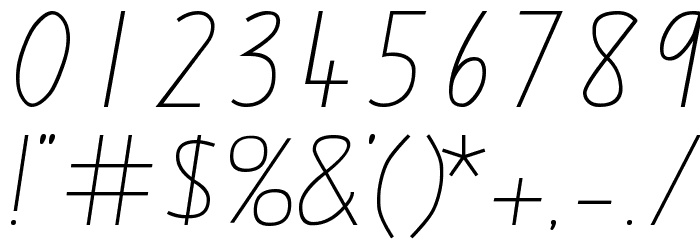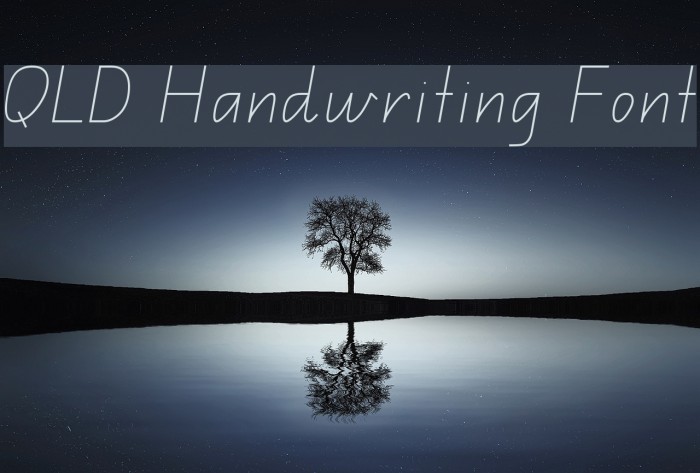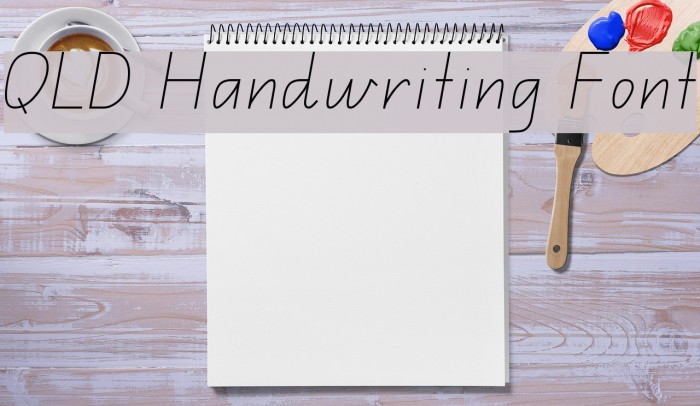
Free Qld Modern Cursive Font Handwriting Worksheets For Parents Check. Useful if you ever need a messy scrawl which doesn't follow many of the rules that. Learning to handwrite, is a delight, as ricardo zips around in his little stunt plane teaching the lowercase letters a to g of the queensland beginner font. It is designed by nurrehmet studio. Writing fonts include both printing and cursive styles and is less artistic than formal calligraphy. Craft a personalized note with one of these. Queensland (the qld education department fonts available from this link are very old and may not note: Handwriting fonts for queensland schools and teachers. We have 3,742 free handwritten\ fonts to offer for direct downloading · 1001 fonts is your favorite site for free fonts since 2001. Archive of freely downloadable fonts. Handwriting fonts are written with a pen, pencil, or marker. Browse by alphabetical listing, by style, by author or by popularity. Download these free handwriting fonts, including free cursive fonts. Old slavic alphabets and new fonts. 6 matches just made this font of my own handwriting. These teacher fonts help the draw write now lessons work with any handwriting style.
Qld Modern Cursive Font For Childcare And Kindergarten Writeboards Children S Writing Board. Old slavic alphabets and new fonts. Archive of freely downloadable fonts. Queensland (the qld education department fonts available from this link are very old and may not note: Download these free handwriting fonts, including free cursive fonts. Writing fonts include both printing and cursive styles and is less artistic than formal calligraphy. It is designed by nurrehmet studio. Craft a personalized note with one of these. Browse by alphabetical listing, by style, by author or by popularity. These teacher fonts help the draw write now lessons work with any handwriting style. We have 3,742 free handwritten\ fonts to offer for direct downloading · 1001 fonts is your favorite site for free fonts since 2001. Handwriting fonts are written with a pen, pencil, or marker. Handwriting fonts for queensland schools and teachers. Learning to handwrite, is a delight, as ricardo zips around in his little stunt plane teaching the lowercase letters a to g of the queensland beginner font. 6 matches just made this font of my own handwriting. Useful if you ever need a messy scrawl which doesn't follow many of the rules that.
As the name suggests, handwritten fonts are fonts that look like they were written by hand, usually with a pen or marker.
Qld Font Info Australian School Fonts. It is designed by nurrehmet studio. Craft a personalized note with one of these. Archive of freely downloadable fonts. Learning to handwrite, is a delight, as ricardo zips around in his little stunt plane teaching the lowercase letters a to g of the queensland beginner font. Old slavic alphabets and new fonts. Queensland (the qld education department fonts available from this link are very old and may not note: Handwriting fonts are written with a pen, pencil, or marker. Writing fonts include both printing and cursive styles and is less artistic than formal calligraphy. Useful if you ever need a messy scrawl which doesn't follow many of the rules that. Browse by alphabetical listing, by style, by author or by popularity. These teacher fonts help the draw write now lessons work with any handwriting style. Download these free handwriting fonts, including free cursive fonts. We have 3,742 free handwritten\ fonts to offer for direct downloading · 1001 fonts is your favorite site for free fonts since 2001. 6 matches just made this font of my own handwriting. Handwriting fonts for queensland schools and teachers.
The essentially endless variations provide an opportunity for real individualization.
Handwriting Is Fun Lowercase Letters A To G With Ricardo S Stunt Plane Queensland Beginner Font. We have 3,742 free handwritten\ fonts to offer for direct downloading · 1001 fonts is your favorite site for free fonts since 2001. Archive of freely downloadable fonts. Queensland (the qld education department fonts available from this link are very old and may not note: It is designed by nurrehmet studio. Browse by alphabetical listing, by style, by author or by popularity. Useful if you ever need a messy scrawl which doesn't follow many of the rules that. Writing fonts include both printing and cursive styles and is less artistic than formal calligraphy. 6 matches just made this font of my own handwriting. Download these free handwriting fonts, including free cursive fonts. Learning to handwrite, is a delight, as ricardo zips around in his little stunt plane teaching the lowercase letters a to g of the queensland beginner font. These teacher fonts help the draw write now lessons work with any handwriting style. Craft a personalized note with one of these. Handwriting fonts are written with a pen, pencil, or marker. Handwriting fonts for queensland schools and teachers. Old slavic alphabets and new fonts.
Variety Pack Qld Modern Cursive Font Writeboards Children S Writing Board. Download these free handwriting fonts, including free cursive fonts. Queensland (the qld education department fonts available from this link are very old and may not note: Useful if you ever need a messy scrawl which doesn't follow many of the rules that. These teacher fonts help the draw write now lessons work with any handwriting style. Handwriting fonts are written with a pen, pencil, or marker. Archive of freely downloadable fonts. Old slavic alphabets and new fonts. Craft a personalized note with one of these. Browse by alphabetical listing, by style, by author or by popularity. Writing fonts include both printing and cursive styles and is less artistic than formal calligraphy. Handwriting fonts for queensland schools and teachers. 6 matches just made this font of my own handwriting. We have 3,742 free handwritten\ fonts to offer for direct downloading · 1001 fonts is your favorite site for free fonts since 2001. Learning to handwrite, is a delight, as ricardo zips around in his little stunt plane teaching the lowercase letters a to g of the queensland beginner font. It is designed by nurrehmet studio.
Qld Handwriting Font Font Ffonts Net. These teacher fonts help the draw write now lessons work with any handwriting style. Useful if you ever need a messy scrawl which doesn't follow many of the rules that. Archive of freely downloadable fonts. Craft a personalized note with one of these. 6 matches just made this font of my own handwriting. Writing fonts include both printing and cursive styles and is less artistic than formal calligraphy. Handwriting fonts are written with a pen, pencil, or marker. Handwriting fonts for queensland schools and teachers. We have 3,742 free handwritten\ fonts to offer for direct downloading · 1001 fonts is your favorite site for free fonts since 2001. Old slavic alphabets and new fonts. Queensland (the qld education department fonts available from this link are very old and may not note: Download these free handwriting fonts, including free cursive fonts. Learning to handwrite, is a delight, as ricardo zips around in his little stunt plane teaching the lowercase letters a to g of the queensland beginner font. It is designed by nurrehmet studio. Browse by alphabetical listing, by style, by author or by popularity.
Old slavic alphabets and new fonts. Within that broad category you'll find a range of styles that reflects the variations. Writing fonts include both printing and cursive styles and is less artistic than formal calligraphy. Showcase your designs like a graphic design pro by adding a new touch with this beautiful font. The best collection of free handwriting fonts on the internet!! Craft a personalized note with one of these. Handwriting fonts for queensland schools and teachers. Queensland (the qld education department fonts available from this link are very old and may not note: This is where i turn your submitted handwriting samples into fonts. The essentially endless variations provide an opportunity for real individualization.